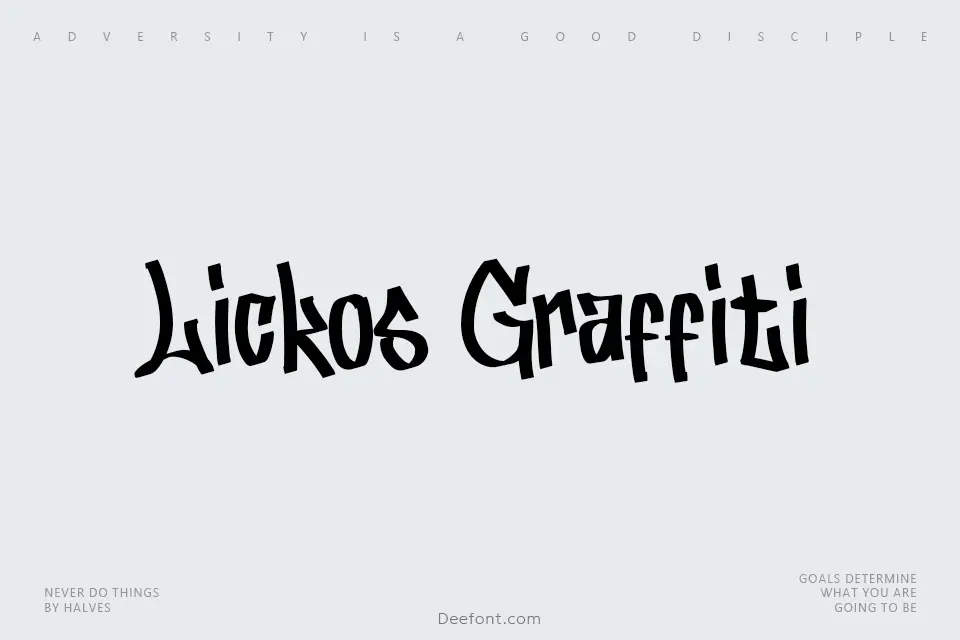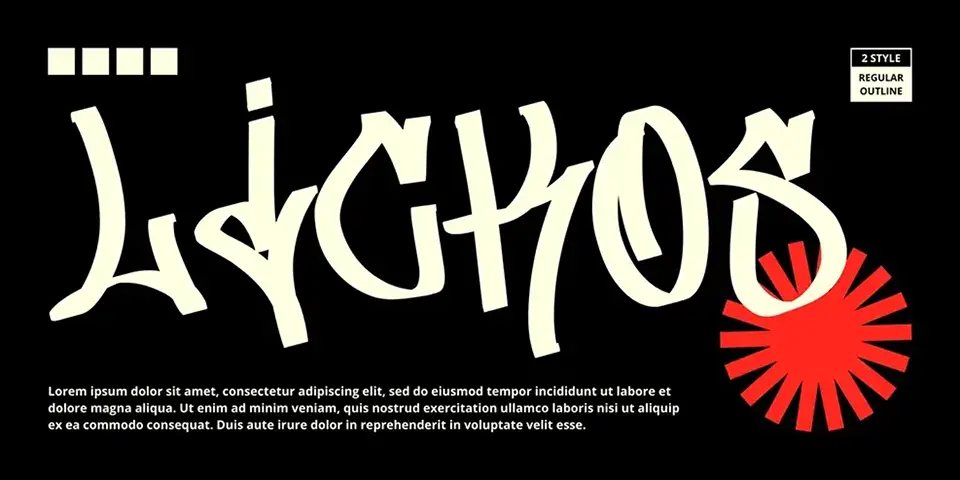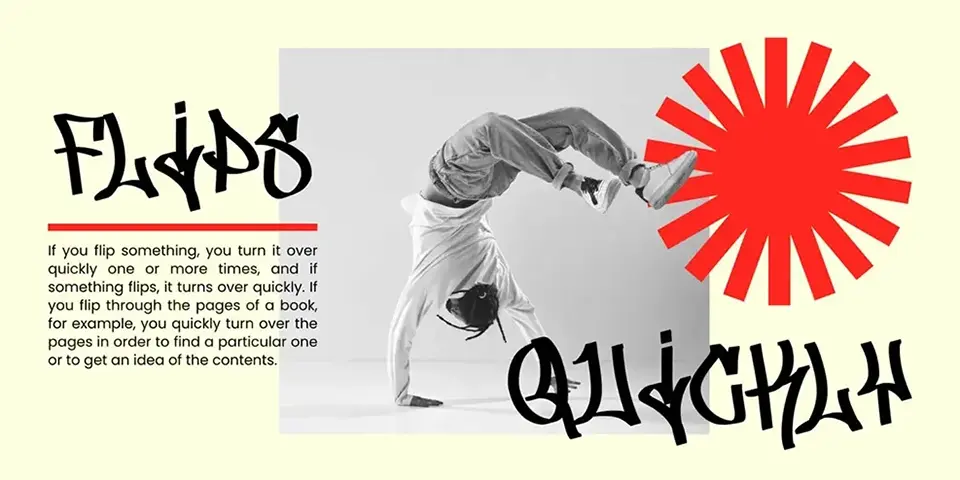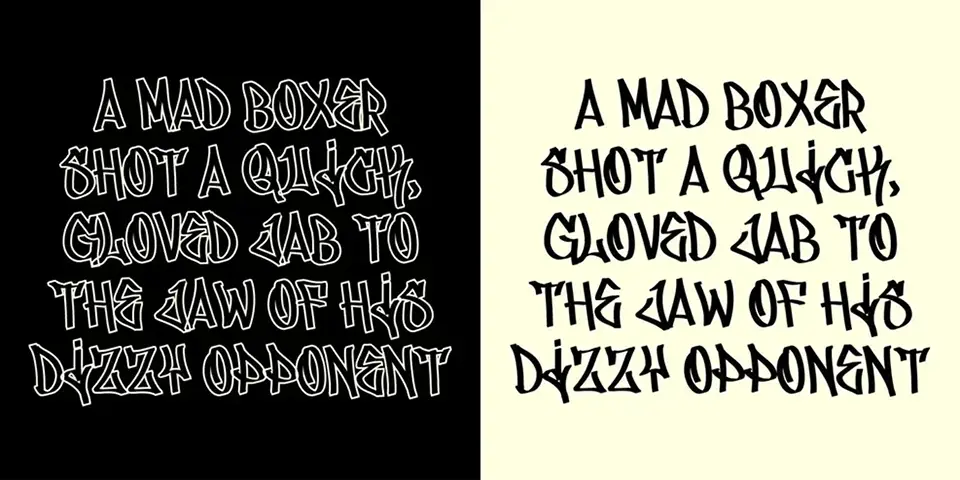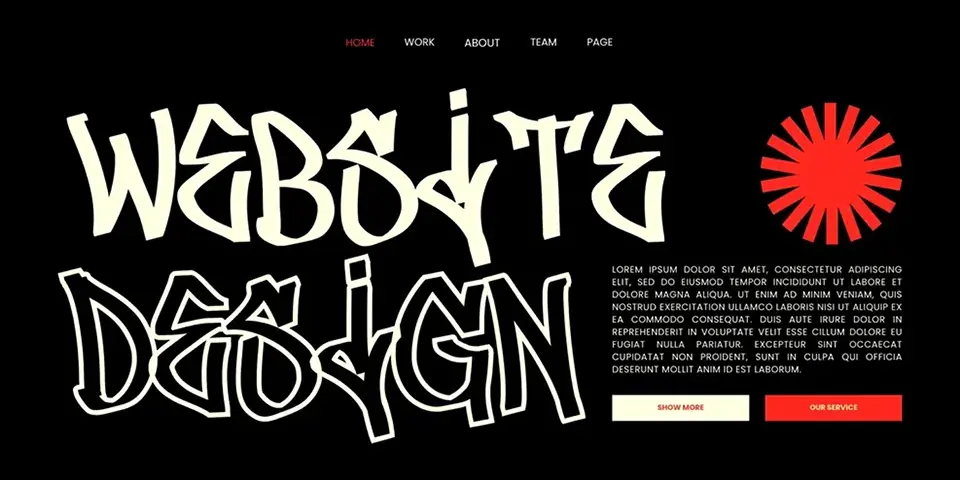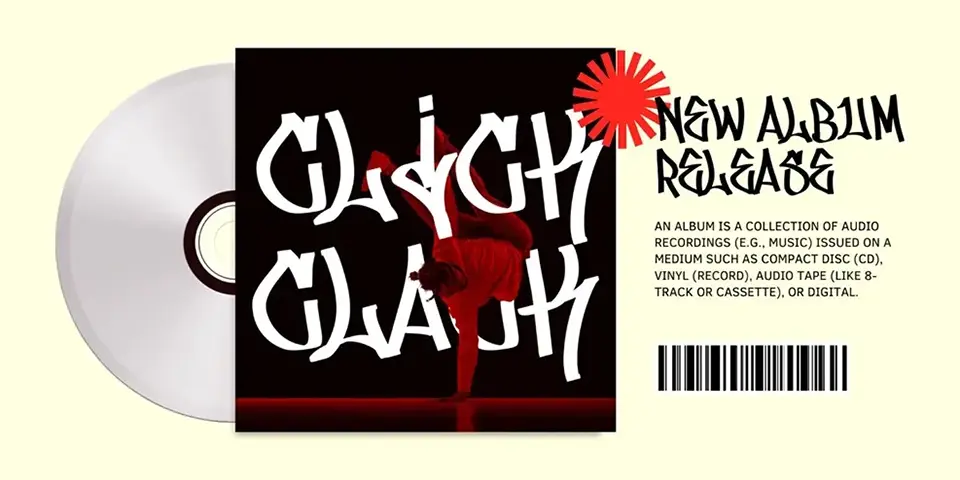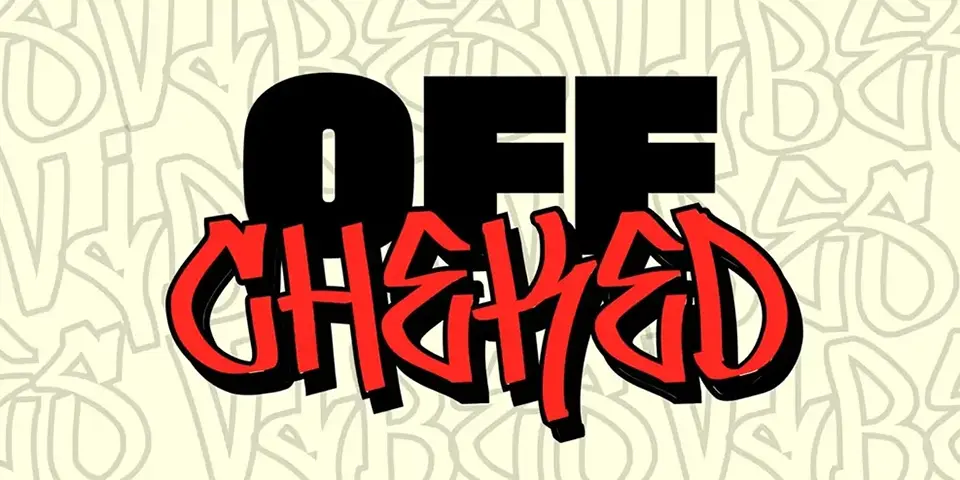
Lickos Graffiti Font
Lickos Graffiti is a bold, expressive graffiti-inspired script font designed with playful curves and exaggerated forms that capture the vibrant spirit of urban street art. Its robust strokes and dynamic character make it perfect for creating eye-catching designs across posters, branding, merchandise, and social media graphics. This versatile typeface combines edgy urban aesthetics with refined elegance, ideal for projects seeking to convey energy, creativity, and individuality. Supporting full character sets including uppercase, lowercase, numerals, and punctuation, it stands out for making messages pop in crowded visual landscapes.